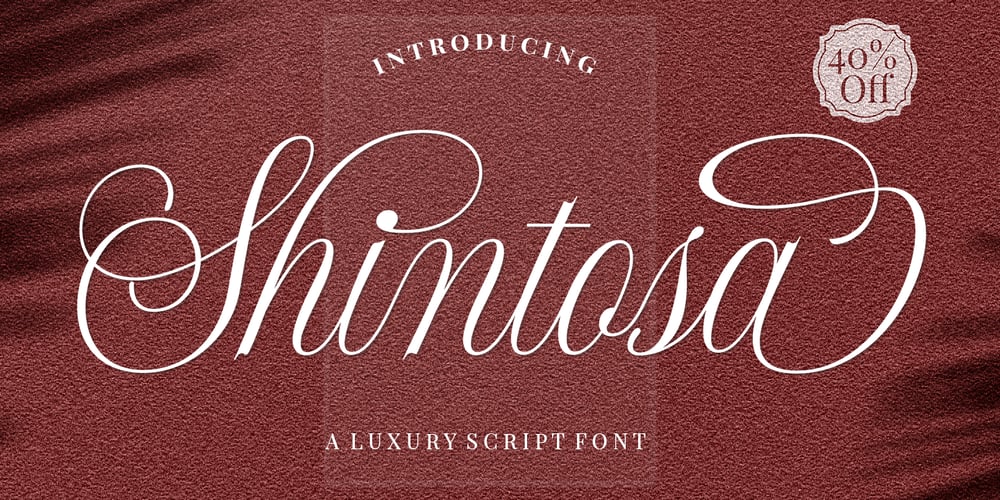
Shintosa Script
Shintosa Script font
Shintosa Script Font Family was designed by Akmal Yusar and published by Picatype. Shintosa Script contains 2 styles and family package options. Shintosa Script is a stylish calligraphy font that features a varying baseline, smooth connections, classic and elegant touch. It’s a classic decorative copperplate script with a modern twist. There are many stylistic alternatives for many letters. Can be used for various purposes such as headings, signatures, logos, wedding invitations, t-shirts, letterheads, signage, labels, news, posters, badges, and more!